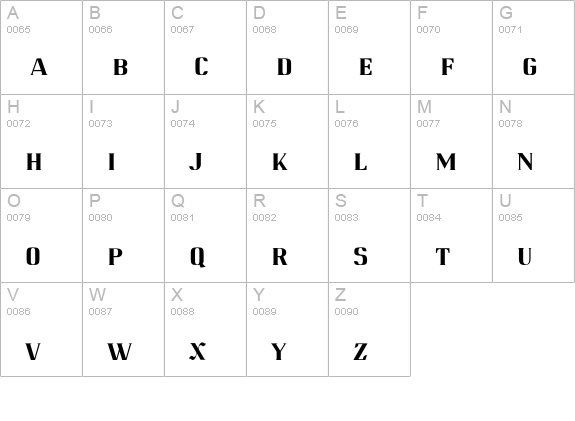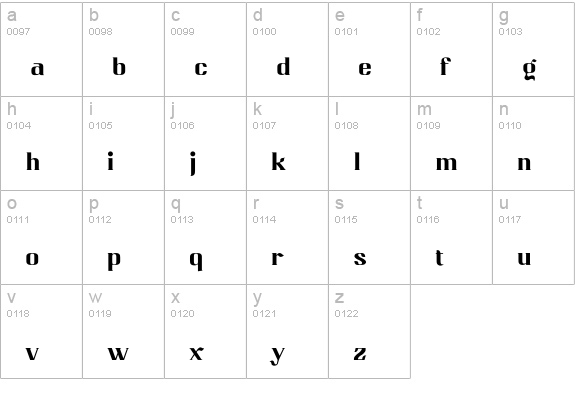
Rigotolio Font Details
Rigotolio font is a stunning display typeface that effortlessly combines elegance and creativity. With its unique and intricate design, it is sure to make a bold statement in any project or design. The font features a beautiful balance between sharp edges and smooth curves, giving it a modern yet timeless feel. This font is not only visually striking, but it also offers a wide range of versatility. Whether you are working on branding, advertising, packaging, or any other creative endeavor, Rigotolio font is the perfect choice to add a touch of sophistication and uniqueness. What makes Rigotolio font even more appealing is the fact that it is available for free download at FontsMarket.com. This means that you can easily access and use this incredible font without any cost. The freedom to use Rigotolio font in your projects opens up endless possibilities for designers, allowing them to explore their creativity without any limitations. So, whether you are a professional designer looking for a fresh and captivating font or a hobbyist searching for a font to enhance your personal projects, Rigotolio font is the ideal choice. Its free availability and exceptional design make it a must-have for anyone in need of a font that truly stands out. Don't miss out on this incredible opportunity to elevate your designs with Rigotolio font - download it for free today at FontsMarket.com!